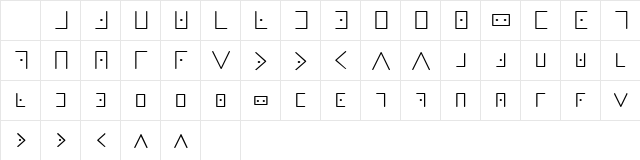
Masonic Writing Regular Free Font
Masonic Writing Regular
Design Context for Masonic Writing
Masonic Writing is a composed and adaptable typeface that performs quietly and consistently across a wide range of design contexts.